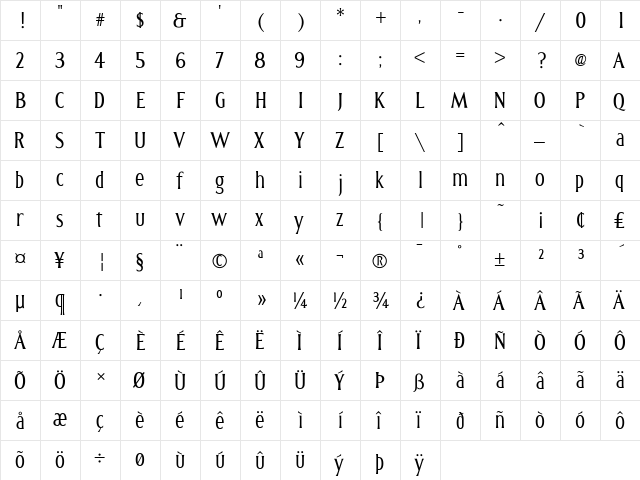
Pilgrim Regular
| Foundry | Marc Tassell / Rebels |
Design Context for Pilgrim Typeface
Pilgrim takes a measured approach to typography — its balanced proportions and neutral character make it a reliable workhorse for both digital and print work.